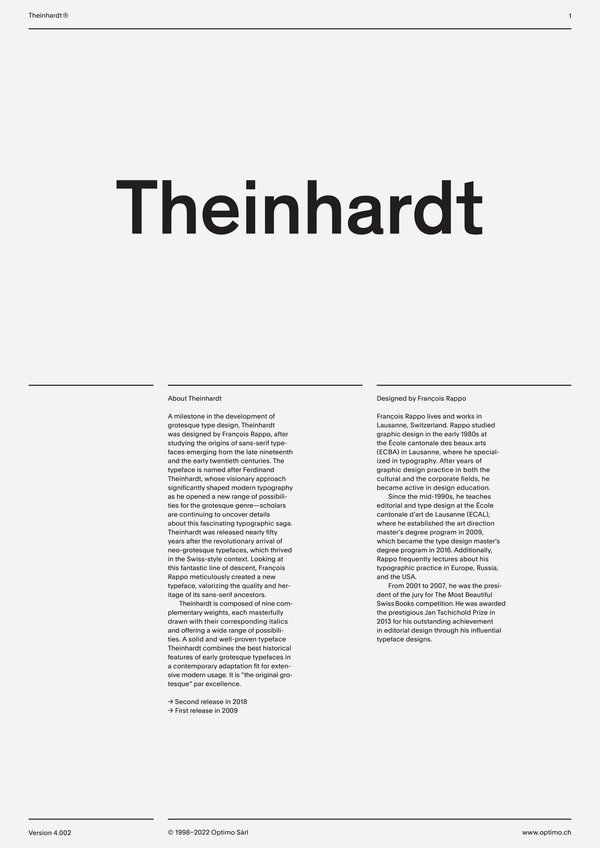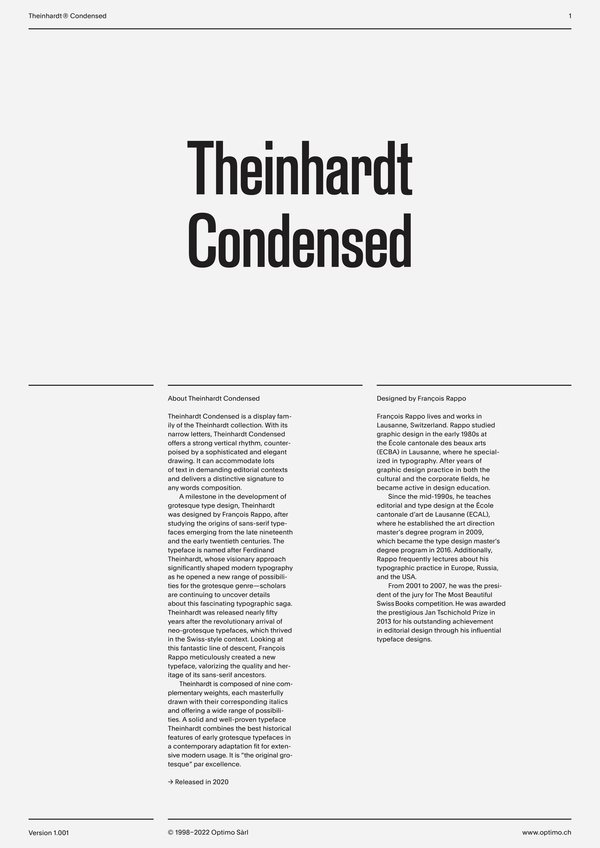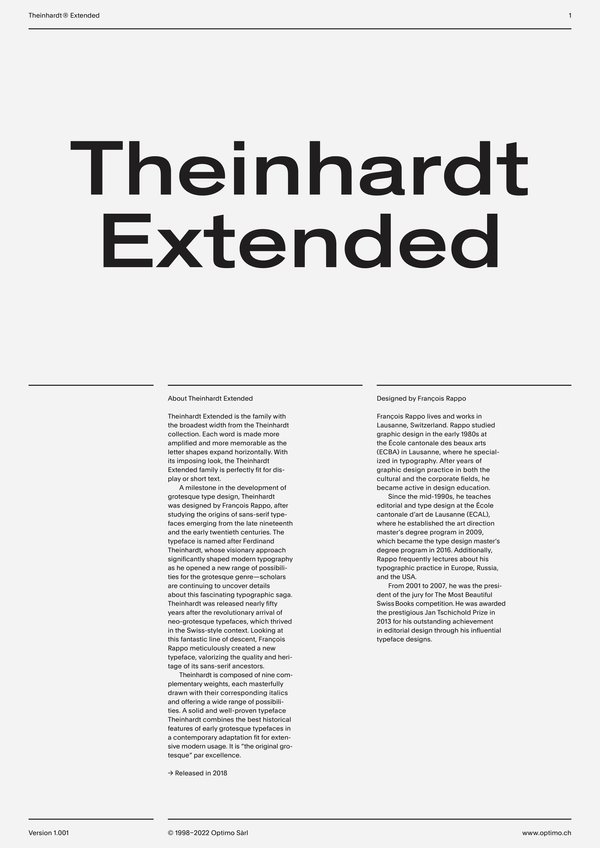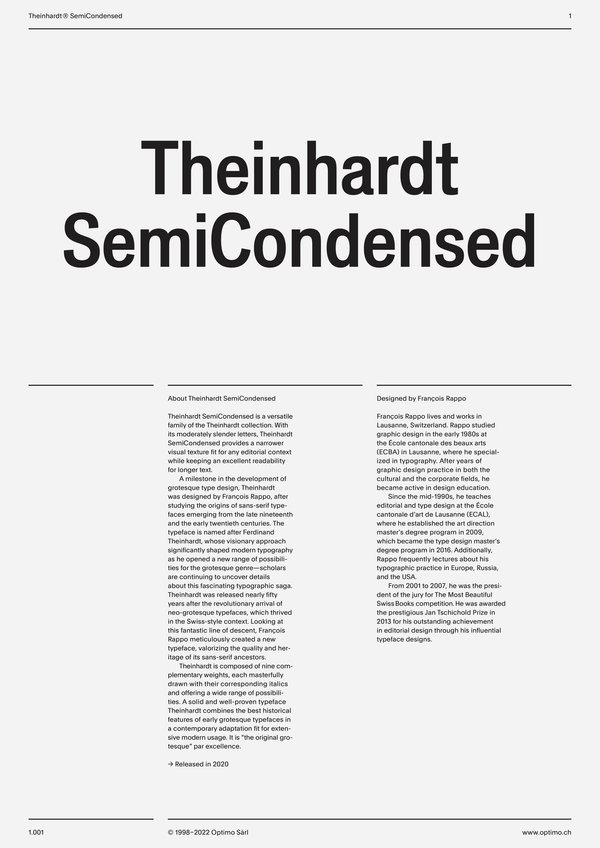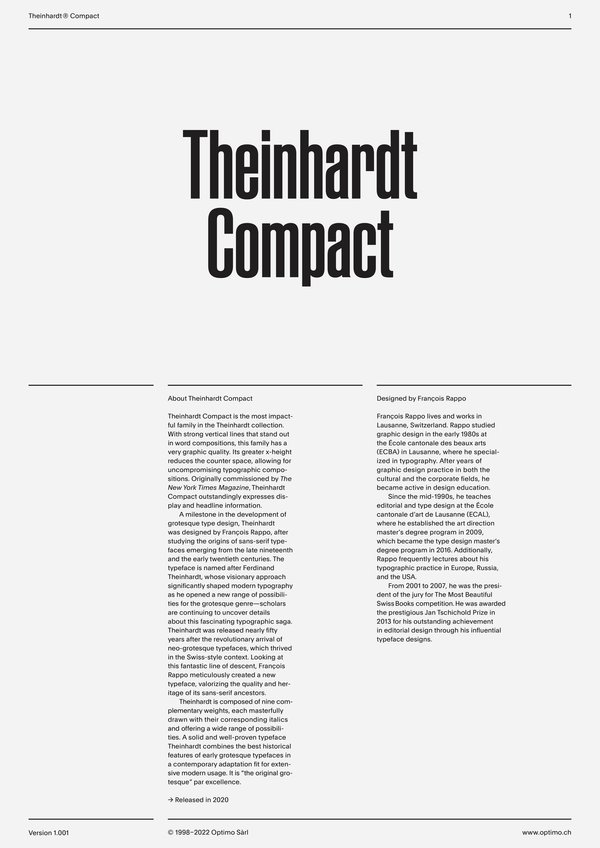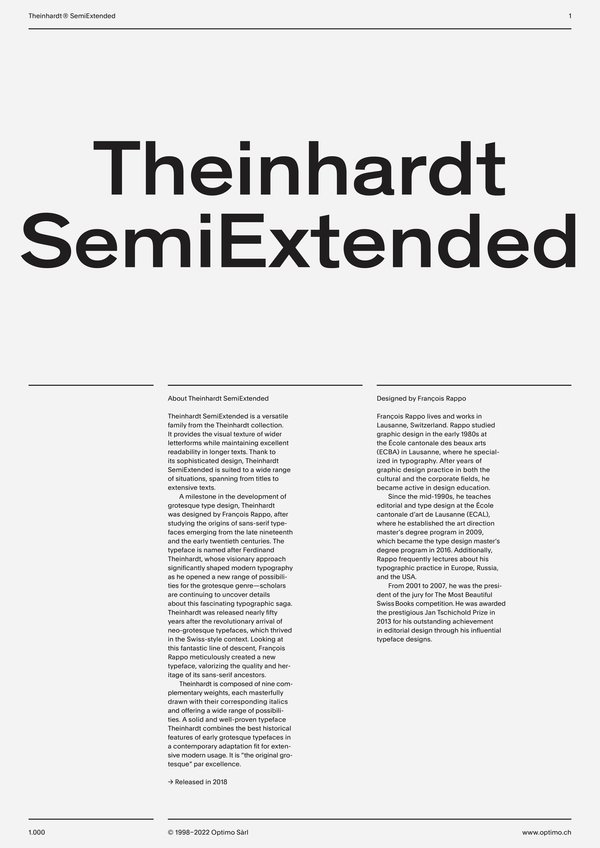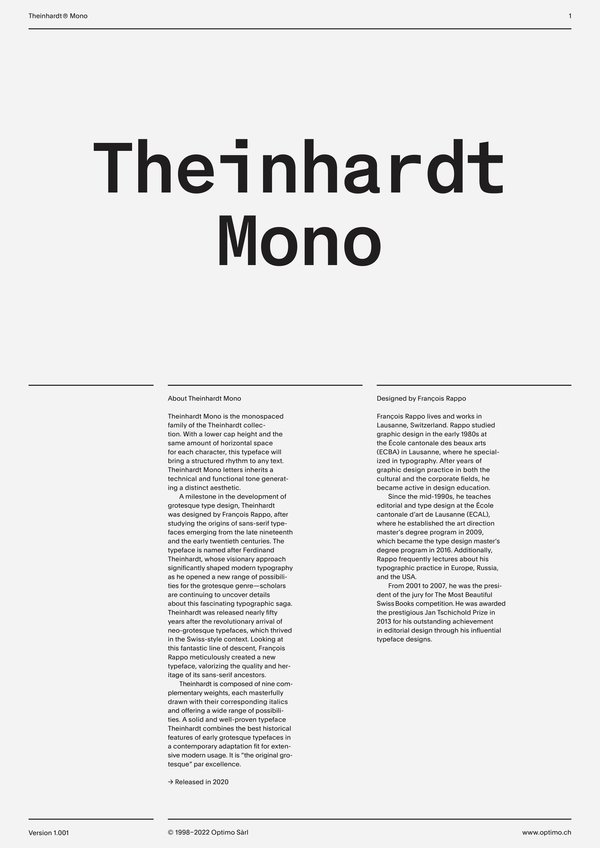
Theinhardt
Case Sensitive Forms
All Caps [cpsp]
Case Sensitive Forms [case]
This function formats the text in uppercase and adjusts spacing between all capital letters. It also applies the ‘Case Sensitive Forms’ feature which replaces certain characters with alternates that are better suited for all capital text, especially related to punctuation.
«Optimo»
@|¦()[]{}¿¡‹›«»-–—·
«OPTIMO»
@|¦()[]{}¿¡‹›«»-–—·
Alternate e g j p q y [Compact only]
Stylistic Set 2 [ss02]
This feature replaces glyph(s) with stylistic alternate(s).
egjpqy
èéêěëēĕėęæǽĝğġģijĵȷỳýŷÿ
egjpqy
èéêěëēĕėęæǽĝğġģijĵȷỳýŷÿ
Historical long s
Stylistics Set 1 [ss01]
This feature replaces glyph(s) with stylistic alternate(s).
Alternate zero [Mono only]
Stylistic Set 2 [ss02]
This feature replaces glyph(s) with stylistic alternate(s).
Alternate zero [Mono only]
Stylistic Set 2 [ss02]
This feature replaces glyph(s) with stylistic alternate(s).
Proportional Oldstyle Figures [pnum–onum]
Based on the design of the lowercase, oldstyle figures have varying ascenders and descenders. Like most of the letters, each number has an appropriate width based on its shape. The combination of oldstyle figures with proportional setting generate numerals perfectly adapted for text.
Tabular Lining Figures
Tabular Lining Figures [tnum–lnum]
Based on the proportions of the capitals, lining figures have an invariable height. With the combination of the tabular spacing format, the width of each numeral is uniformized. This feature is useful when numerals need to all lined up. It facilitates the reading of numbers set within columns or tables. As some applications don’t have access to this feature, proportional figures are set as the default choice.
0123456789
Proportional Oldstyle Figures
Proportional Oldstyle Figures [pnum–onum]
Based on the design of the lowercase, oldstyle figures have varying ascenders and descenders. Like most of the letters, each number has an appropriate width based on its shape. The combination of oldstyle figures with proportional setting generate numerals perfectly adapted for text.
Theinhardt is composed of nine complementary weights, each masterfully drawn with their corresponding italics and offering a wide range of possibilities. A solid and well-proven typeface Theinhardt combines the best historical features of early grotesque typefaces in a contemporary adaptation fit for extensive modern usage. It is “the original grotesque” par excellence.